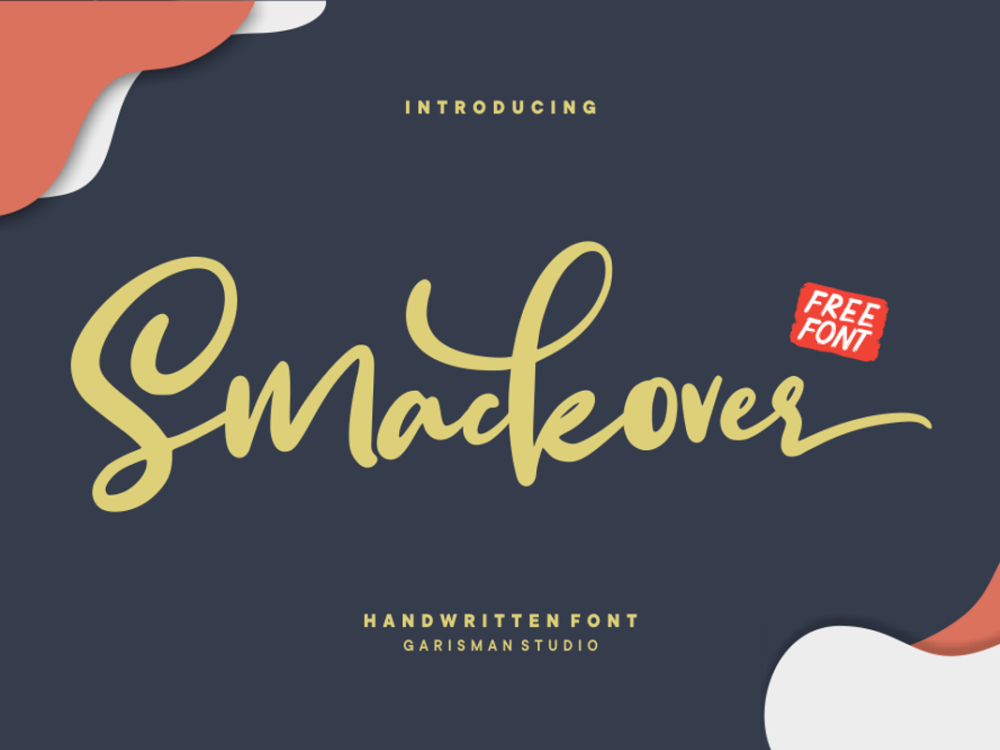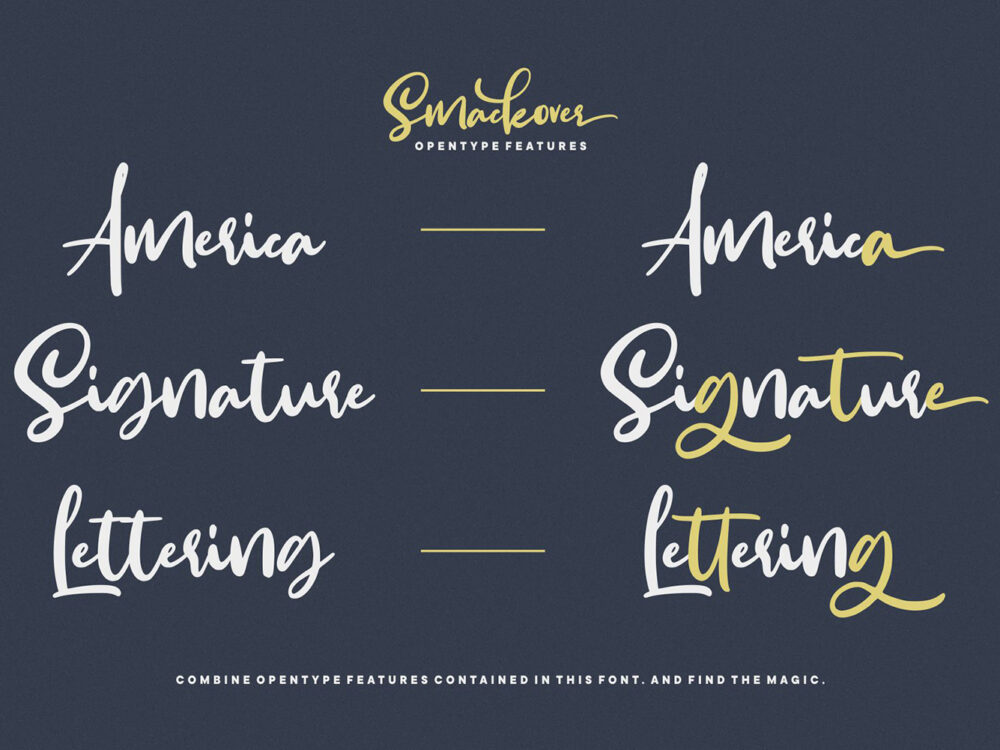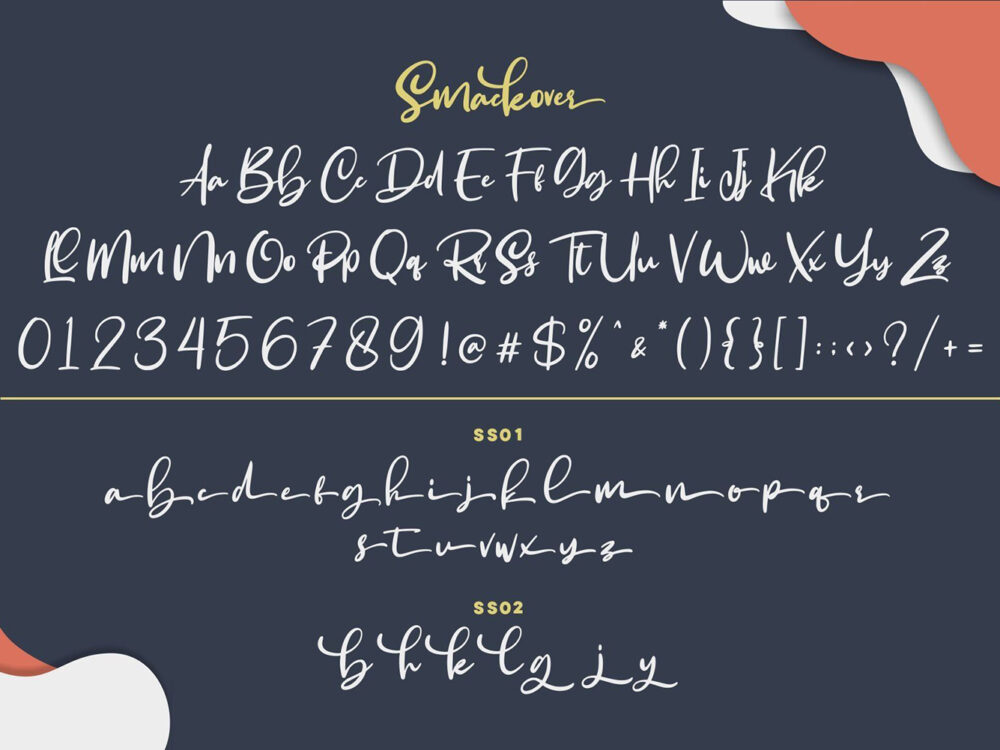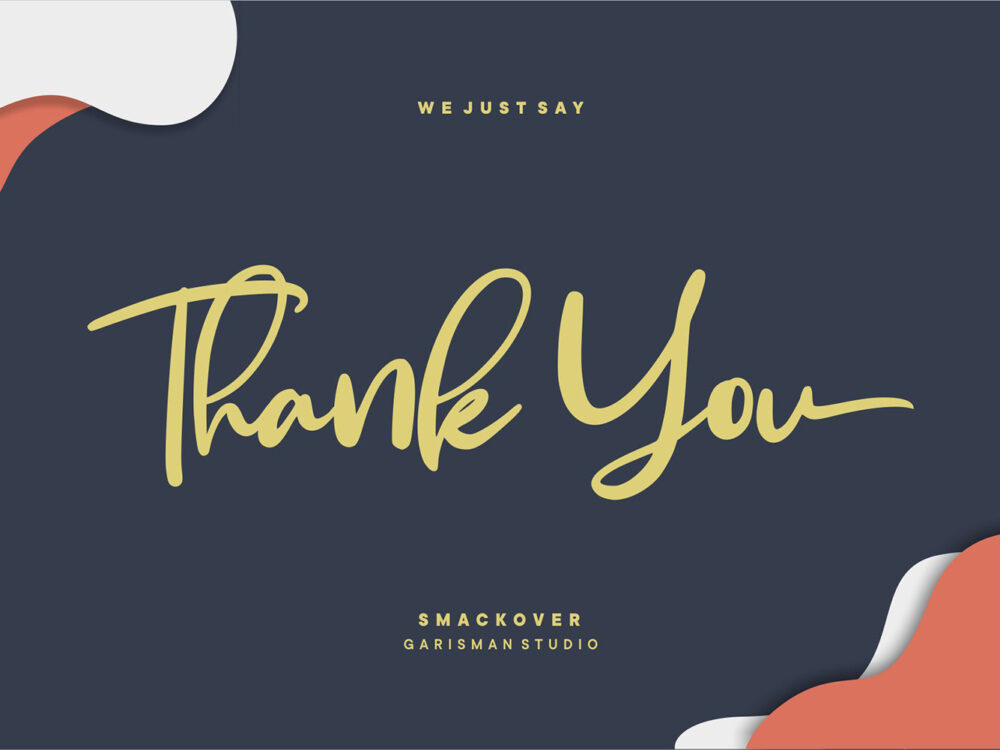
Smackover Handwritten Font Demo
Smackover Free Font
Smackover Handwritten Font Demo is an interesting handwritten font that has a unique ligature to help add aesthetics to any of your design projects. So, if you wish to access more features and use it for commercial work, go get the full version as well.